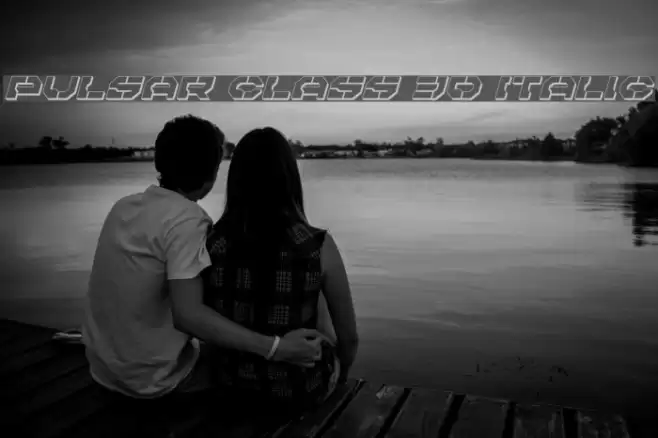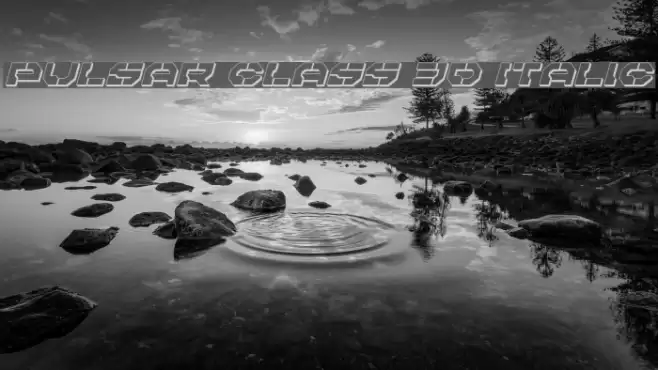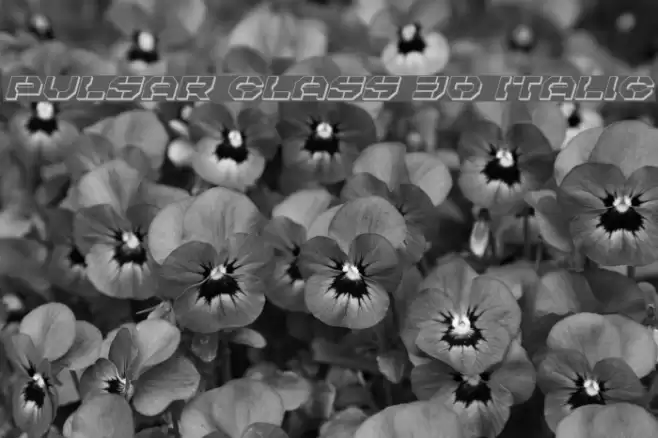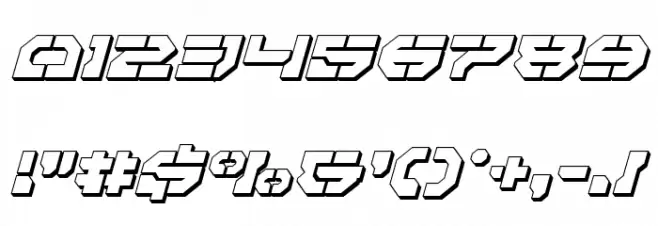
Pulsar Class 3D Italic Font
Pulsar Class 3D Italic Description
This font features a bold, futuristic design with a 3D effect that gives each character a sense of depth and dimension. The letters are angular and geometric, with sharp edges and a consistent italic slant that adds a dynamic feel. The outline style enhances the 3D illusion, making it stand out on any page. The font is highly stylized, making it suitable for projects that require a modern and tech-savvy appearance. It includes a full set of uppercase and lowercase letters, numbers, and a variety of special characters, all maintaining the same bold and angular aesthetic.
A bold, 3D italic font with a futuristic, geometric design from Uncategorized fonts.
- Proposed Projects: Ideal for sci-fi themed posters, video game titles, tech company logos, and futuristic branding materials.